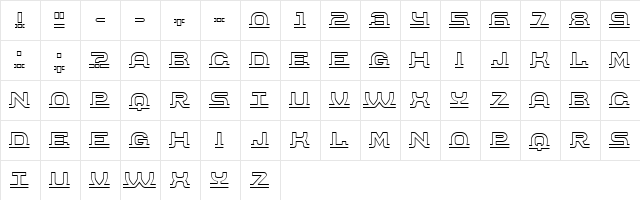
Connected Hollow Regular Font Preview
Connected Hollow Regular
Design Context for Connected Hollow Typeface
Connected Hollow is a composed and adaptable typeface that performs quietly and consistently across a wide range of design contexts.